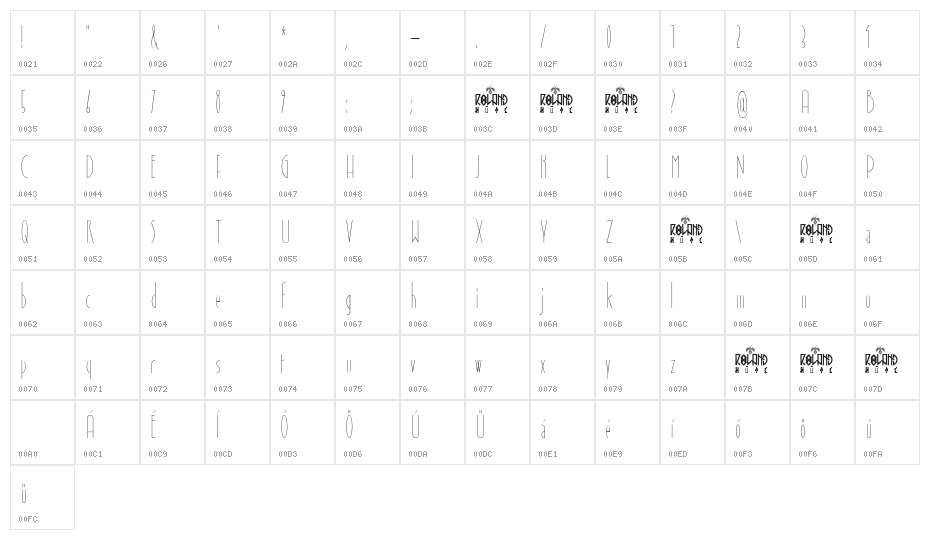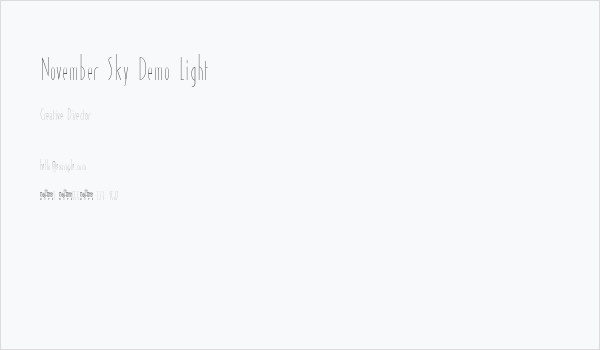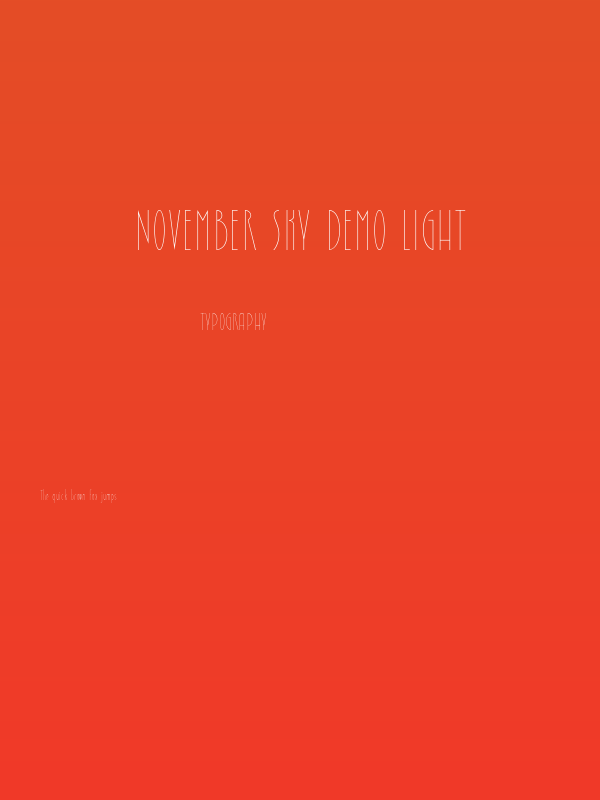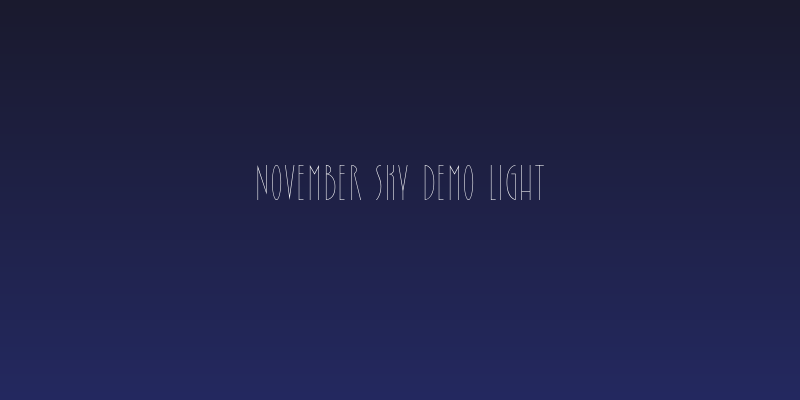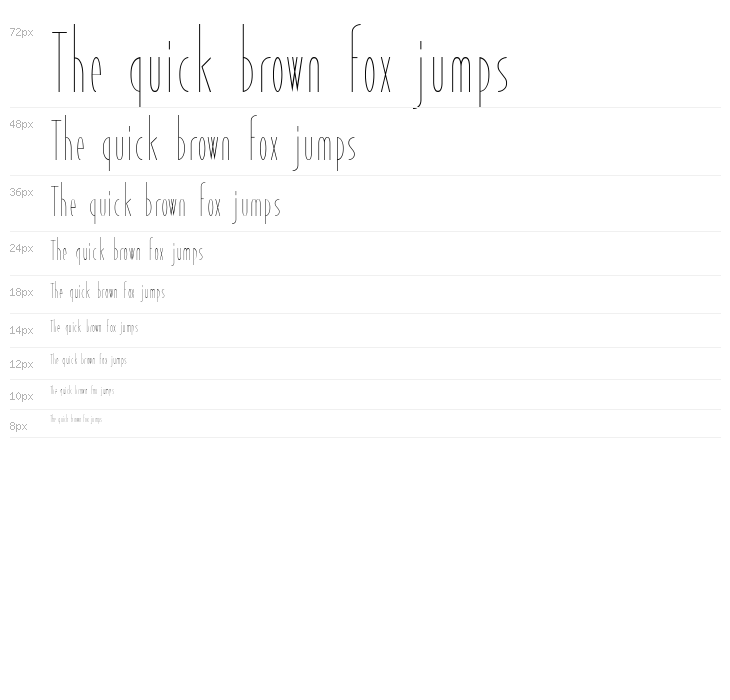
November Sky Demo Light Font
November Sky Demo Light Description
This font features a sleek and elongated design with thin, elegant strokes that give it a refined and modern appearance. The characters are tall and narrow, with a consistent height that creates a uniform look. The uppercase letters are particularly striking, with a geometric quality that is both stylish and sophisticated. The lowercase letters maintain the same thinness, providing a seamless transition between cases. The numerals are clear and easy to read, matching the overall aesthetic of the font. Special characters are included, adding versatility for various design needs. This font is perfect for projects that require a touch of elegance and modernity.
| Proposed Projects | Ideal for fashion magazines, luxury branding, wedding invitations, and high-end product packaging. |